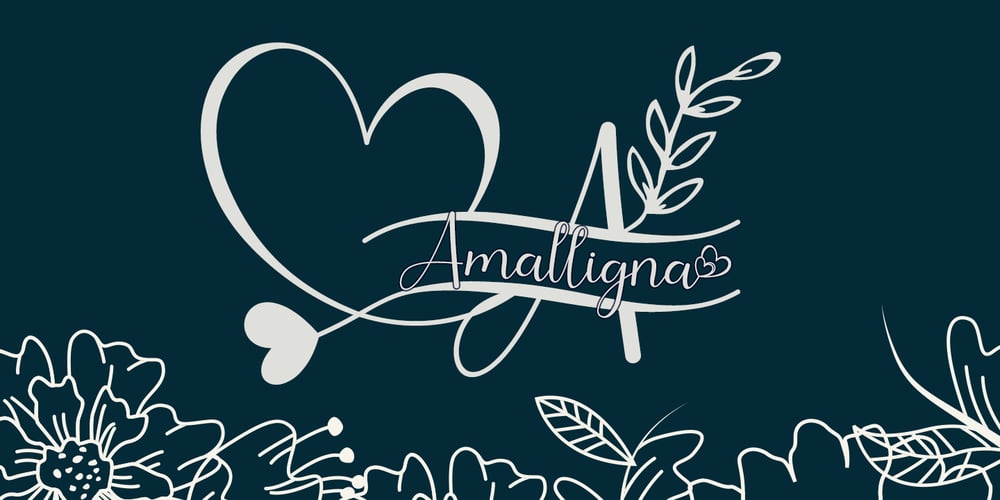
Amalligna
Amalligna font
Amalligna Font Family was designed by Agung Eko Nugroho and published by AEN Creative Studio. Amalligna contains 3 styles and family package options. Amalligna Monogram is an incredibly beautiful and romantic handwritten font, featuring little hearts as ornaments. It looks stunning on wedding invitations, thank you cards, quotes, greeting cards, logos, business cards and every other design which needs a handwritten touch.